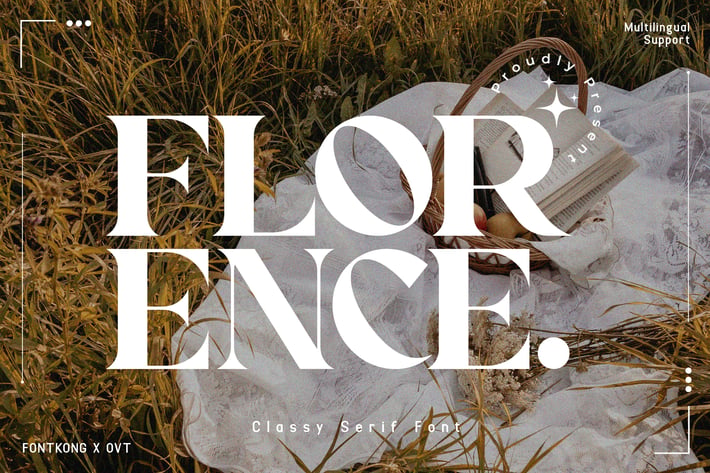
Florence - Classy Serif Font
Introducing "Florence," a classy serif font that embodies timeless sophistication and elegant refinement. Perfect for designers, typographers, and creatives seeking to add a touch of class to their projects, Florence offers a sleek and stylish typeface that exudes professionalism and elegance.
Ideal for branding, editorial layouts, logos, packaging, and web design, Florence's clean lines and balanced proportions provide a sophisticated and luxurious aesthetic. Each character is meticulously crafted to ensure readability and visual appeal, making your designs both refined and impactful.
The "Florence" font includes a complete set of uppercase and lowercase letters, numbers, punctuation marks, and special characters. This comprehensive set ensures seamless integration into a variety of design projects, from chic branding to elegant editorial content.
Elevate your designs with Florence, the classy serif font that adds a touch of timeless sophistication to every project.